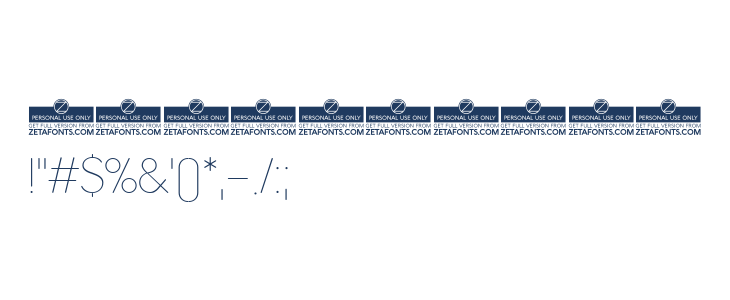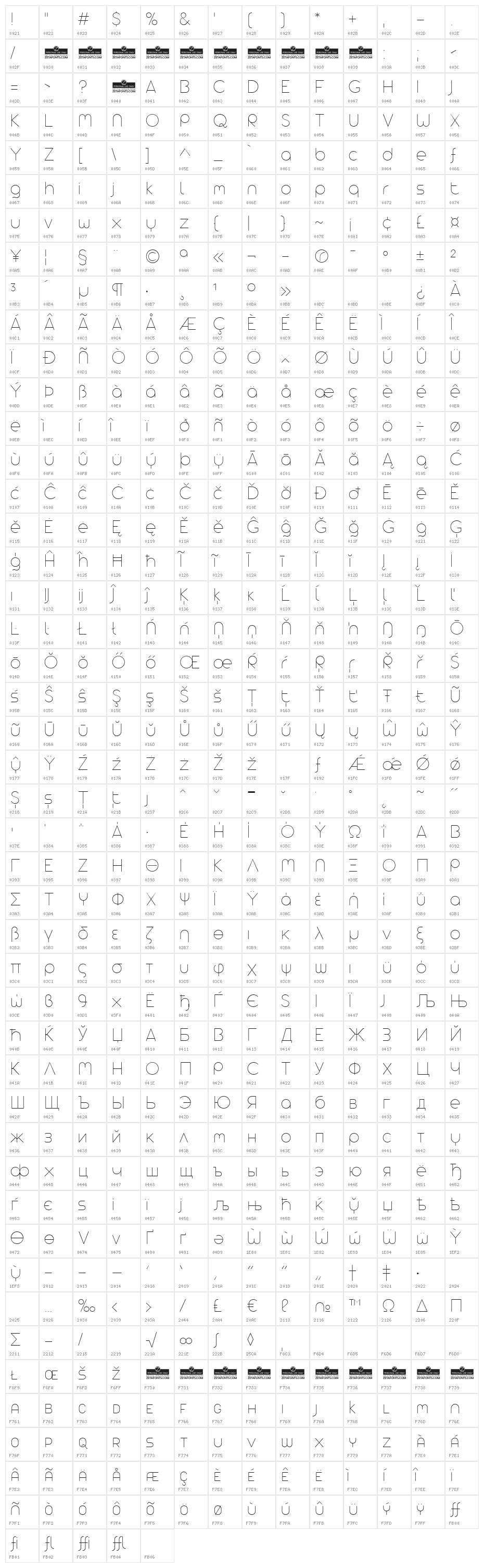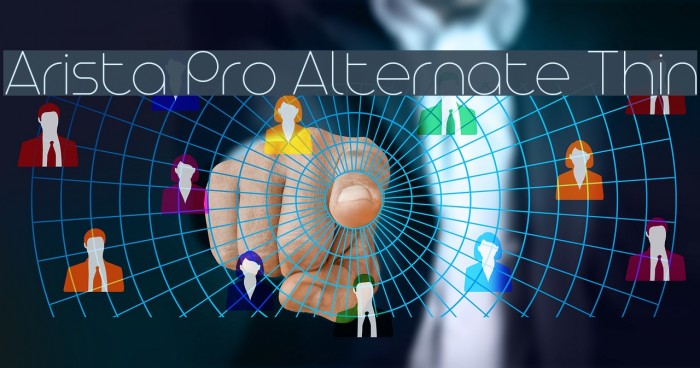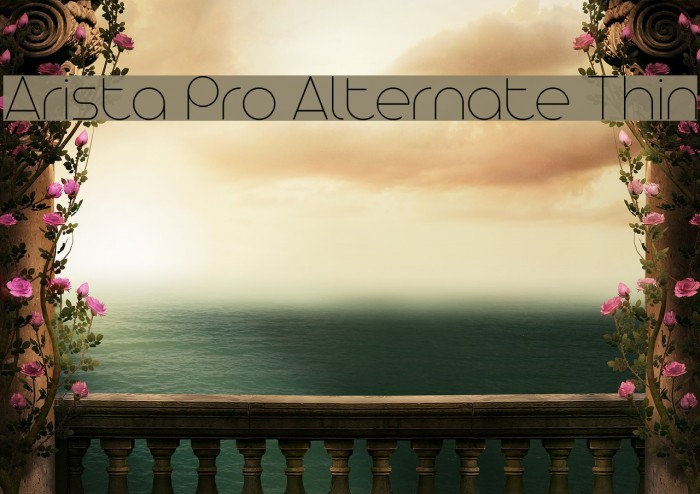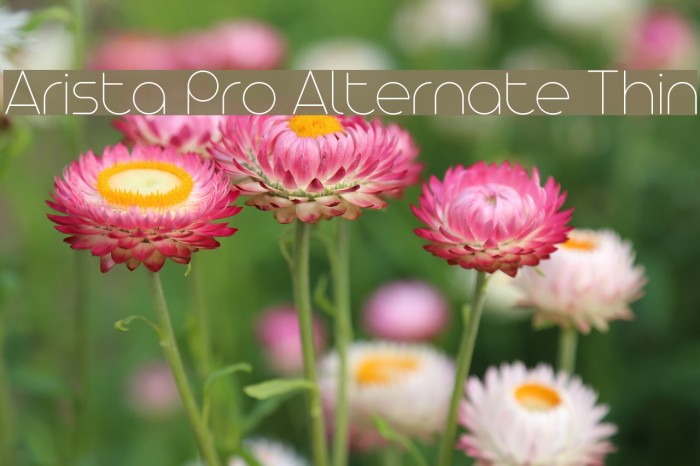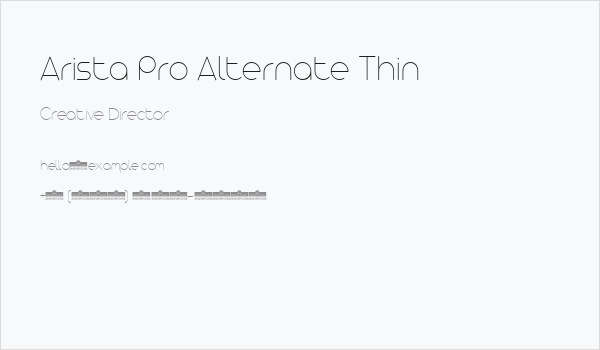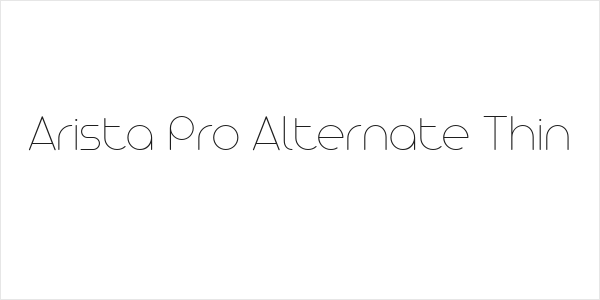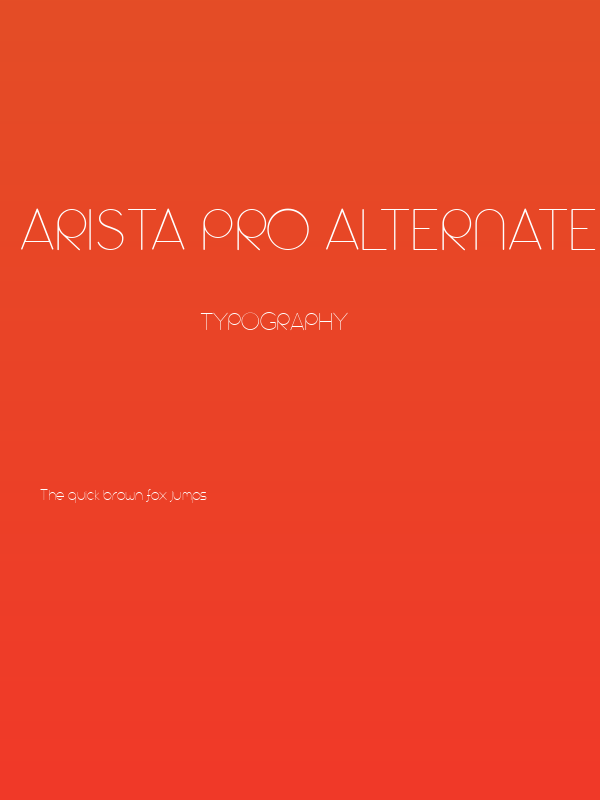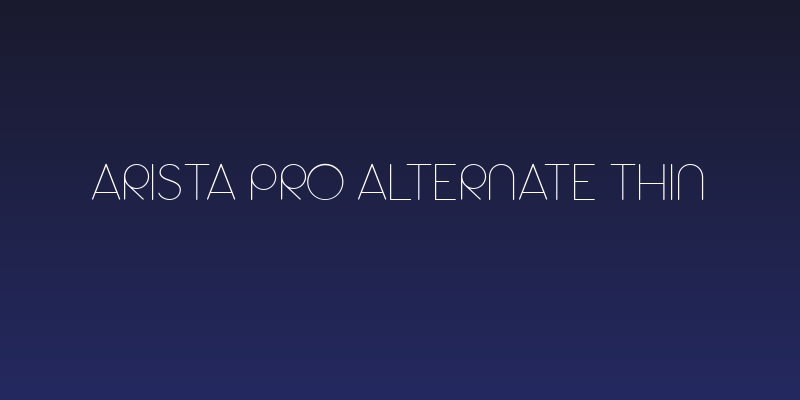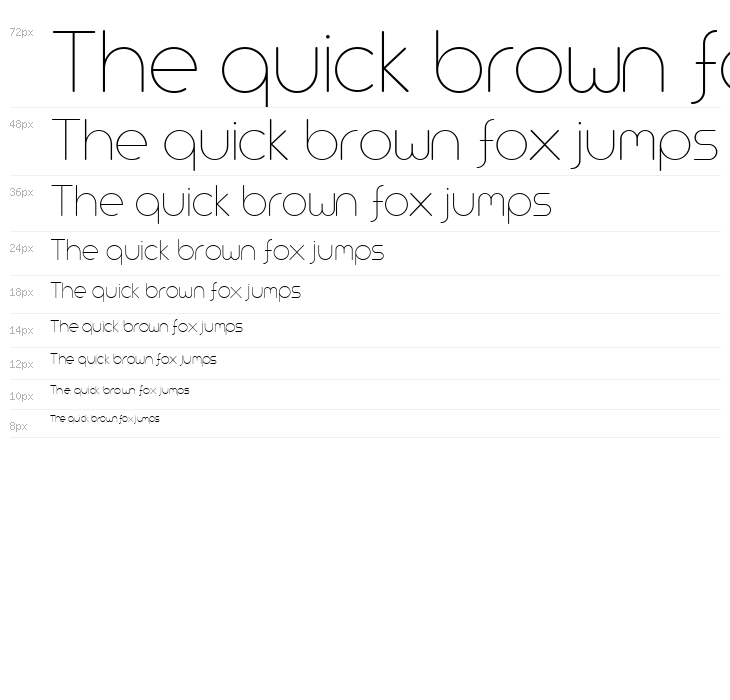
Arista Pro Alternate Thin Font
Arista Pro Alternate Thin Description
This font features a sleek and minimalist design with thin, clean lines that convey a sense of modernity and elegance. The characters are evenly spaced, contributing to a harmonious and balanced appearance. The uppercase and lowercase letters maintain a consistent style, with rounded edges and a geometric structure that enhances readability. The numerals and special characters are crafted with the same attention to detail, ensuring a cohesive look across all elements. This font's simplicity and clarity make it suitable for a variety of design applications.